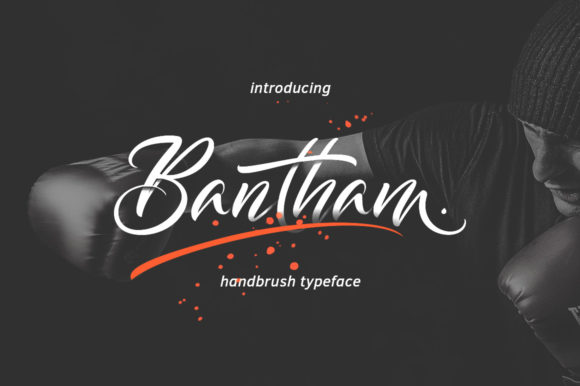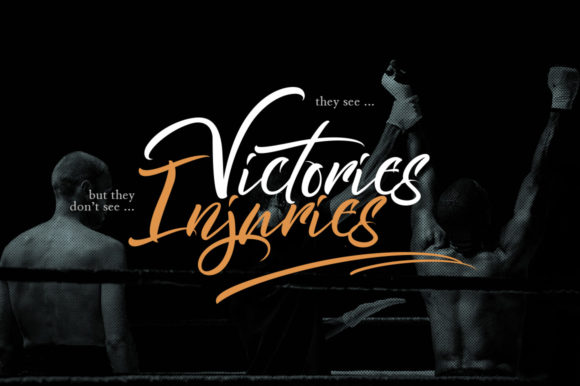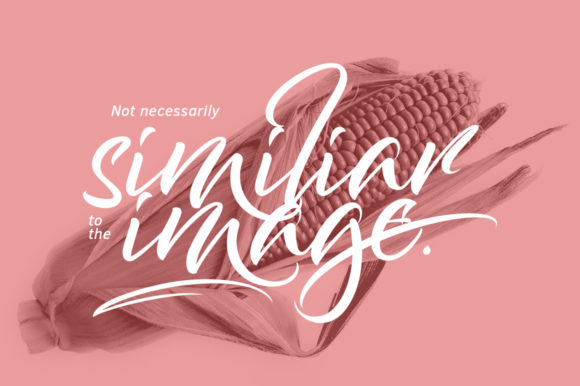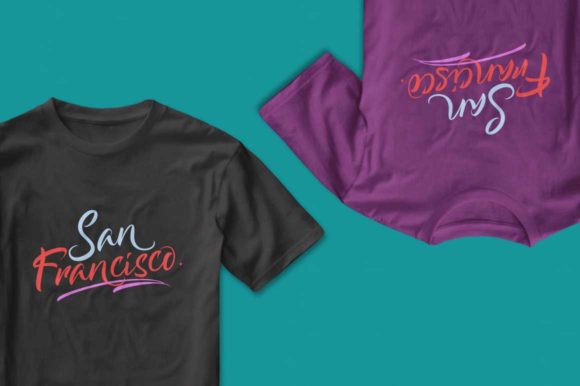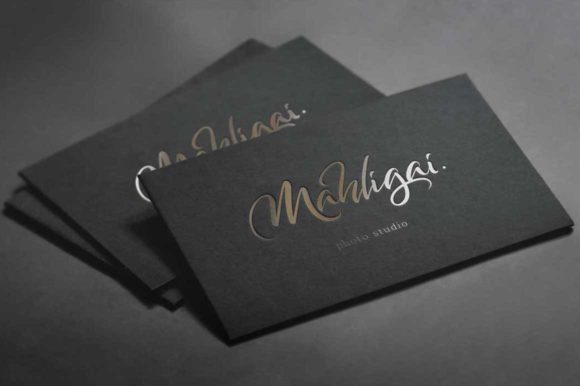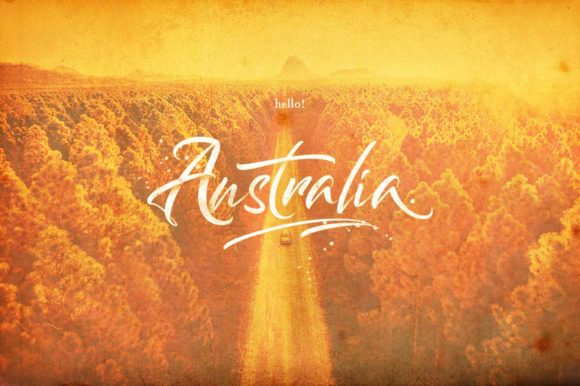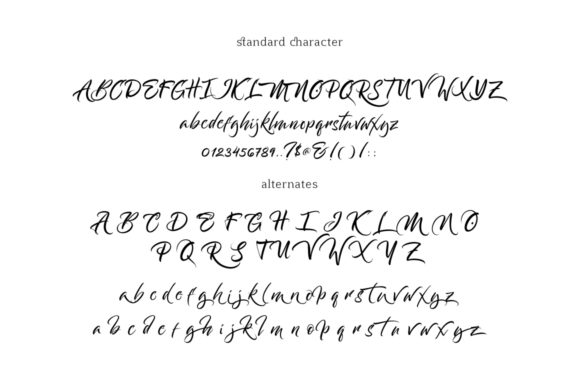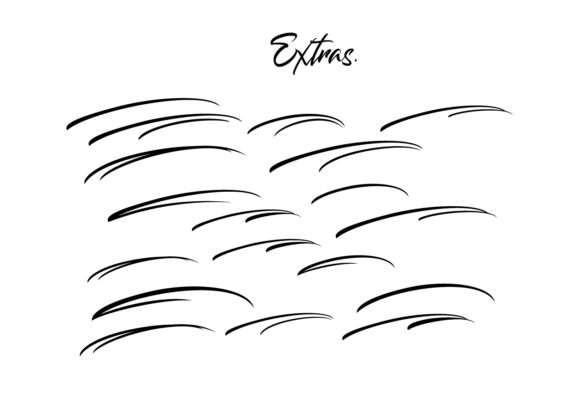
Bantham Font
About Bantham Font
Bantham is a charming handwritten font, with an incredibly relaxed style. This font is PUA encoded which means you can access all of the glyphs and swashes with ease! It features a varying baseline, smooth lines, gorgeous glyphs and stunning alternates.